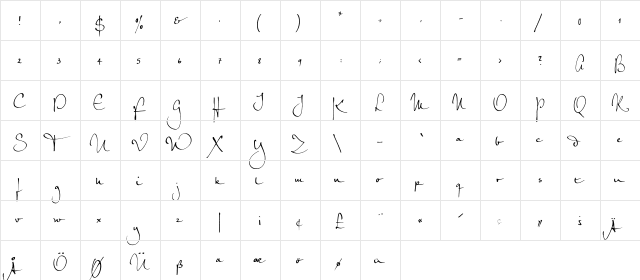
PetraScriptEF-Regular Regular
Design Context for PetraScriptEF-Regular Typeface
PetraScriptEF-Regular flows with the natural rhythm of handwritten lettering, making it ideal for designs that call for warmth and personal expression.
Font Pairing: Combine PetraScriptEF-Regular with a simple geometric sans for maximum contrast — the tension between flowing curves and clean structure is a classic typographic pairing.
Pro Tip: Use PetraScriptEF-Regular for short runs of text — names, titles, or taglines. Extended body copy in script faces tires the eye quickly.